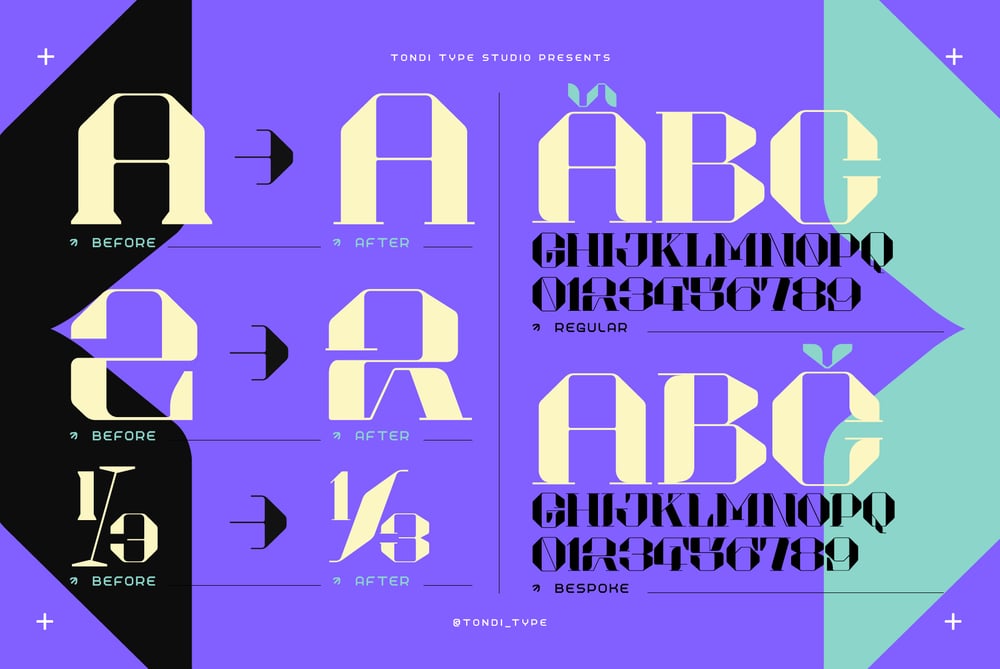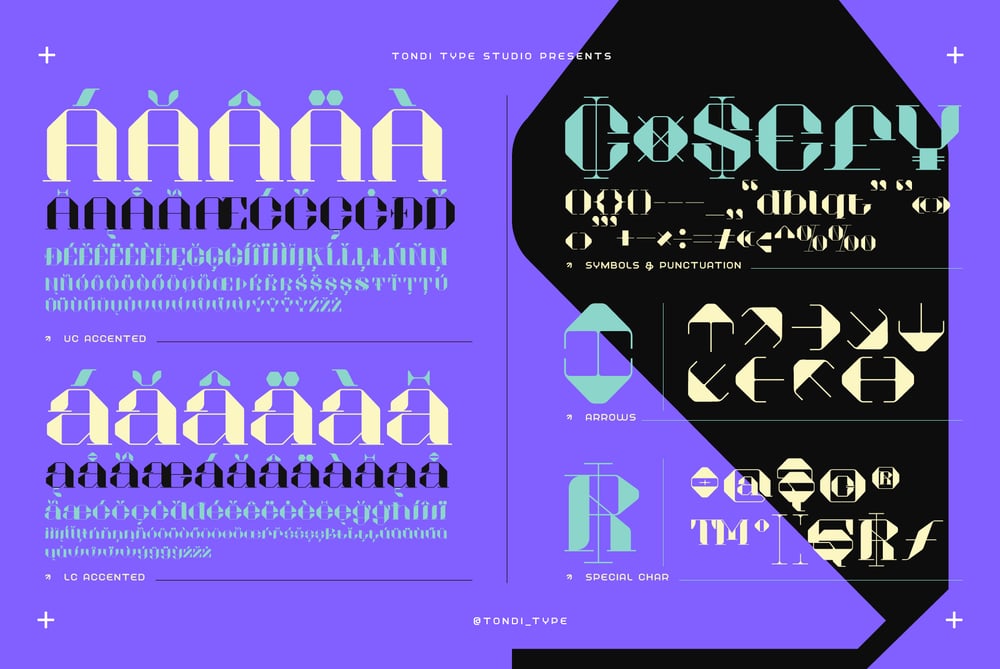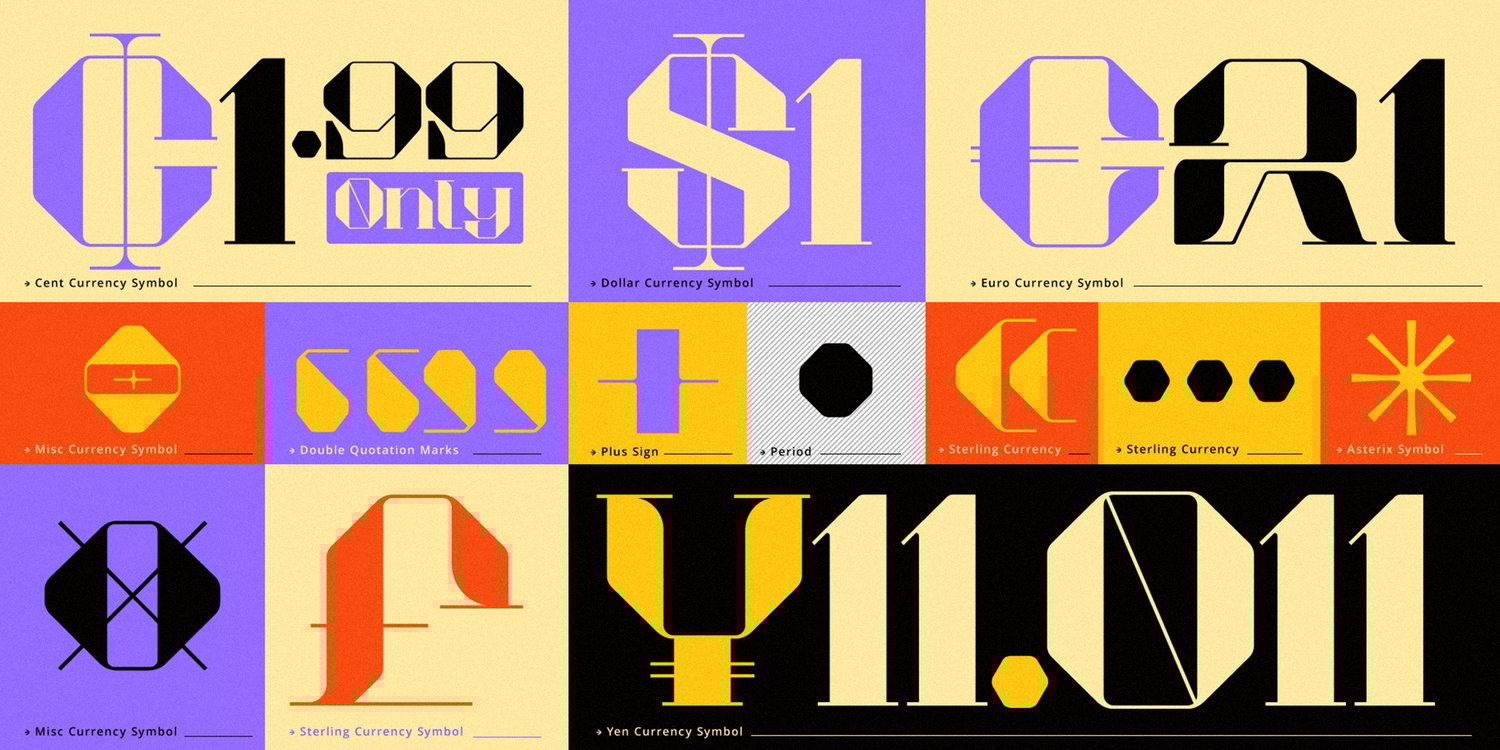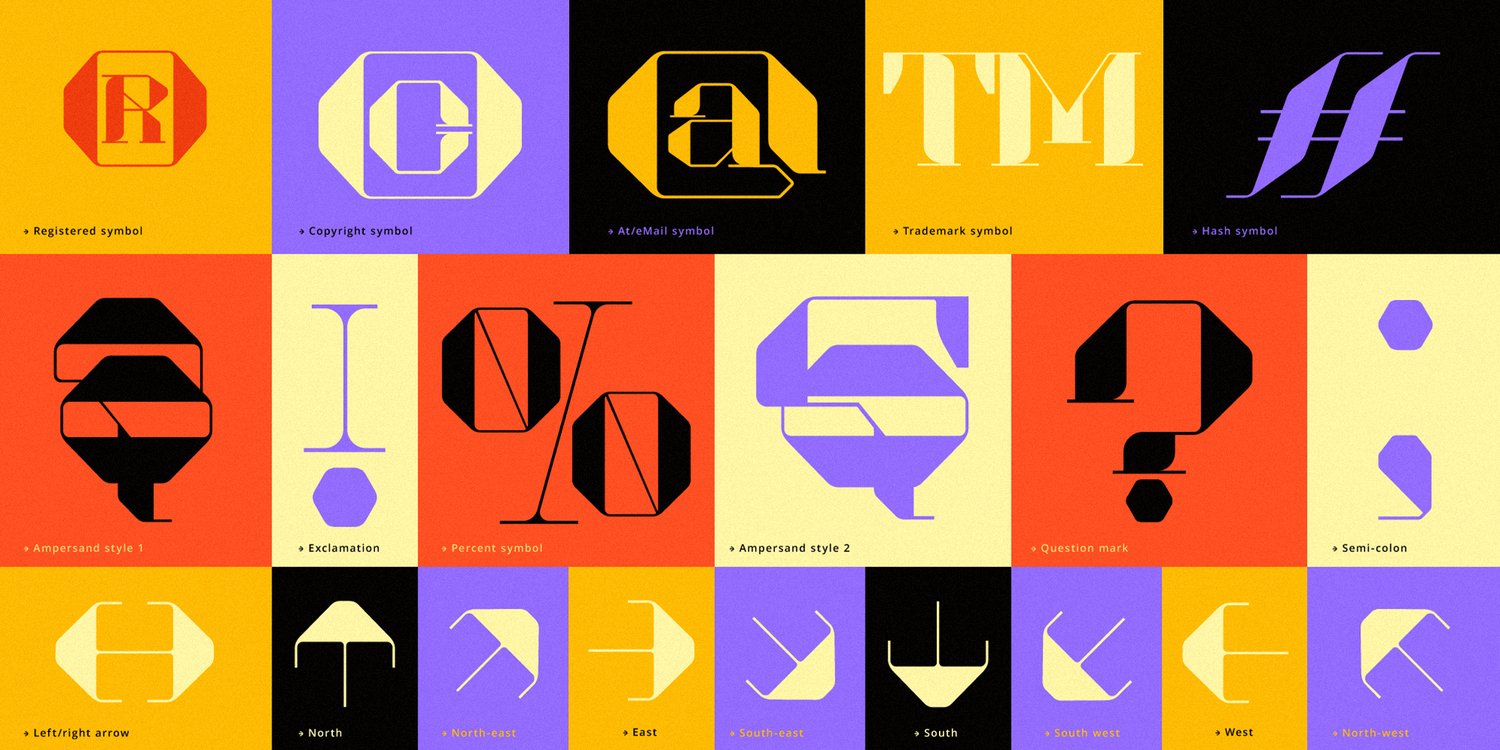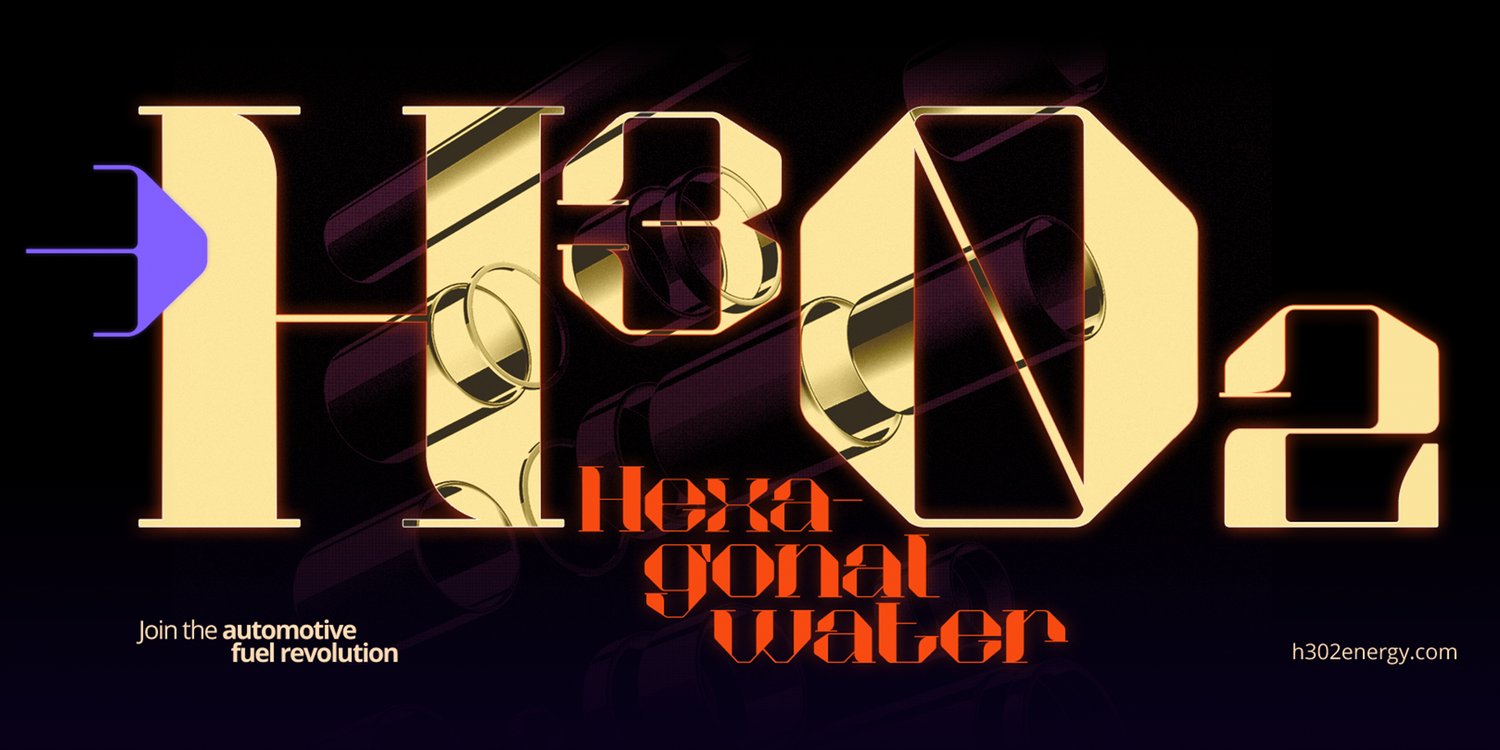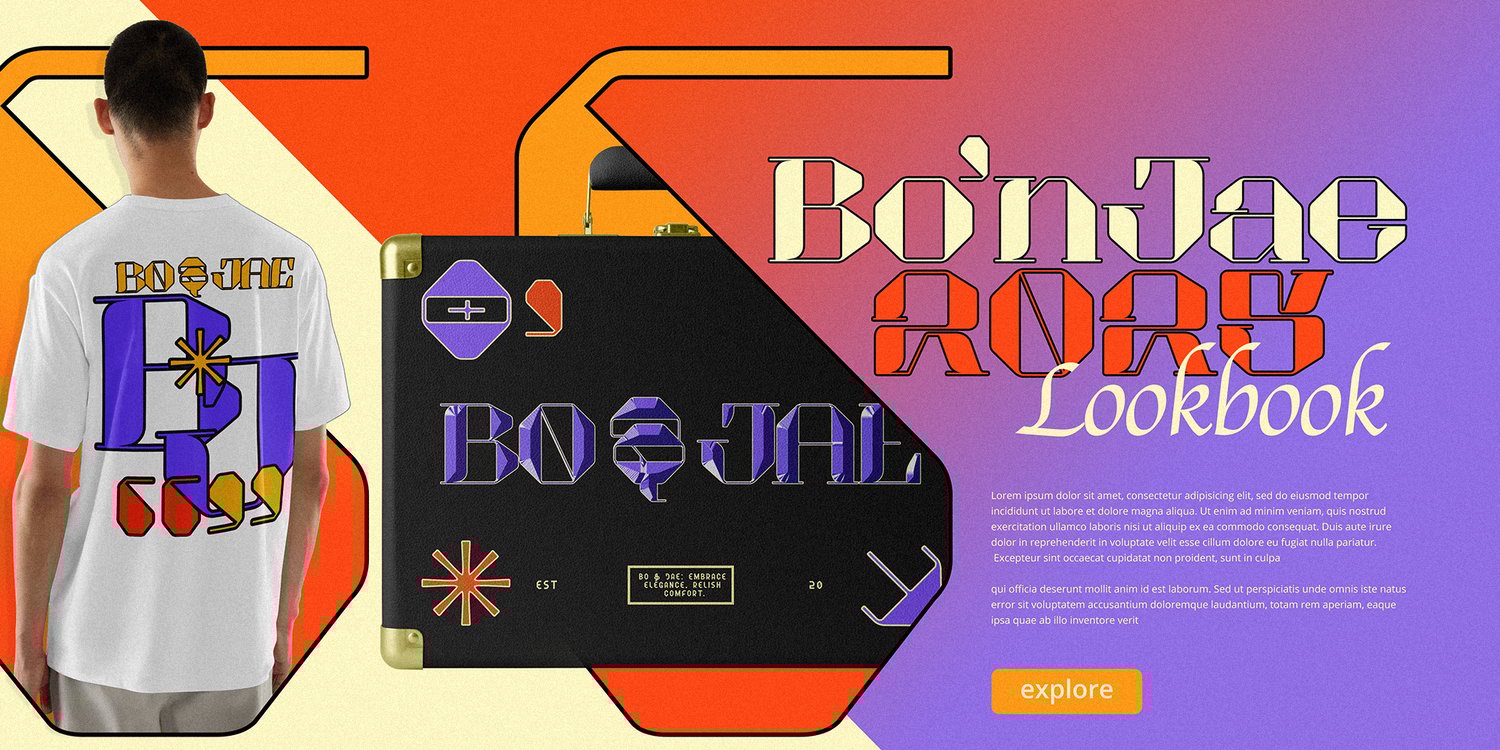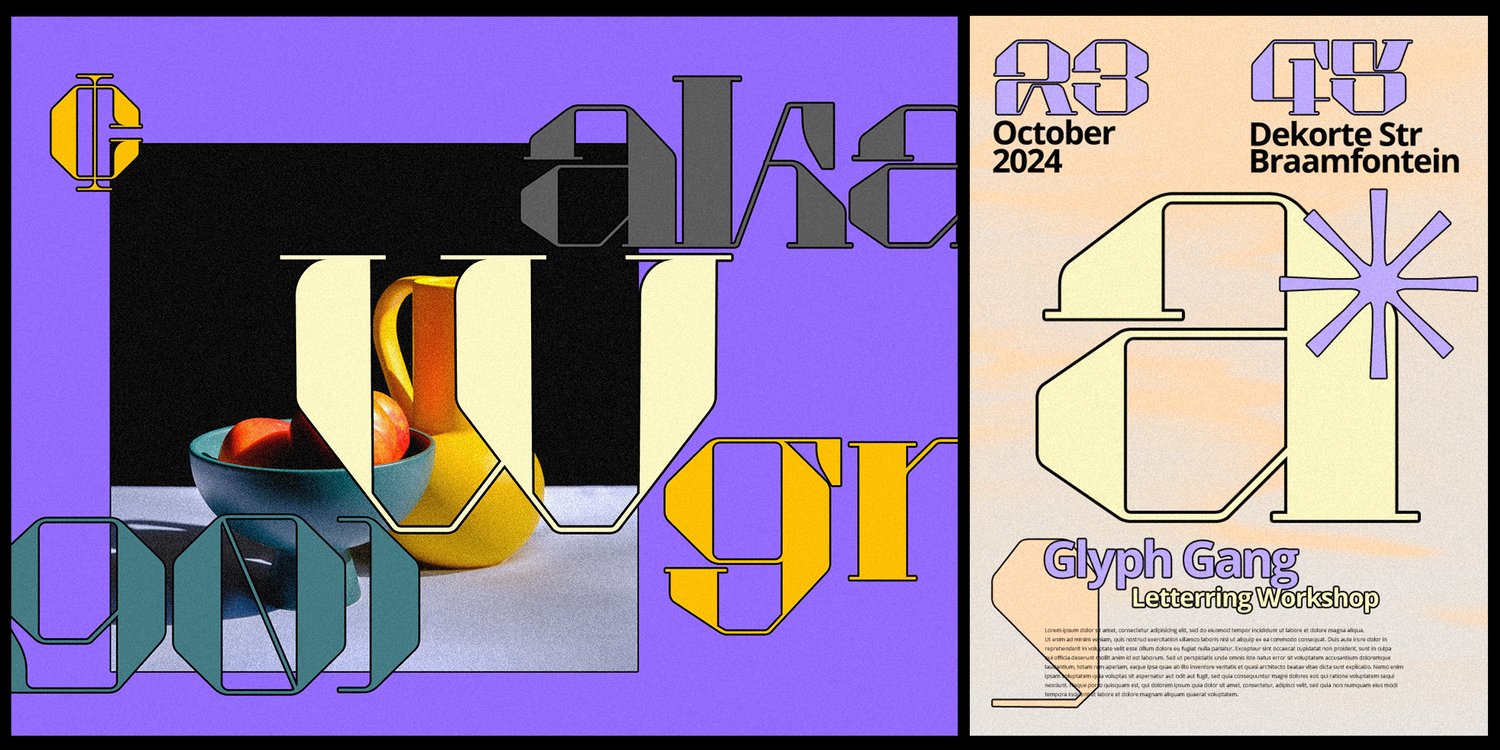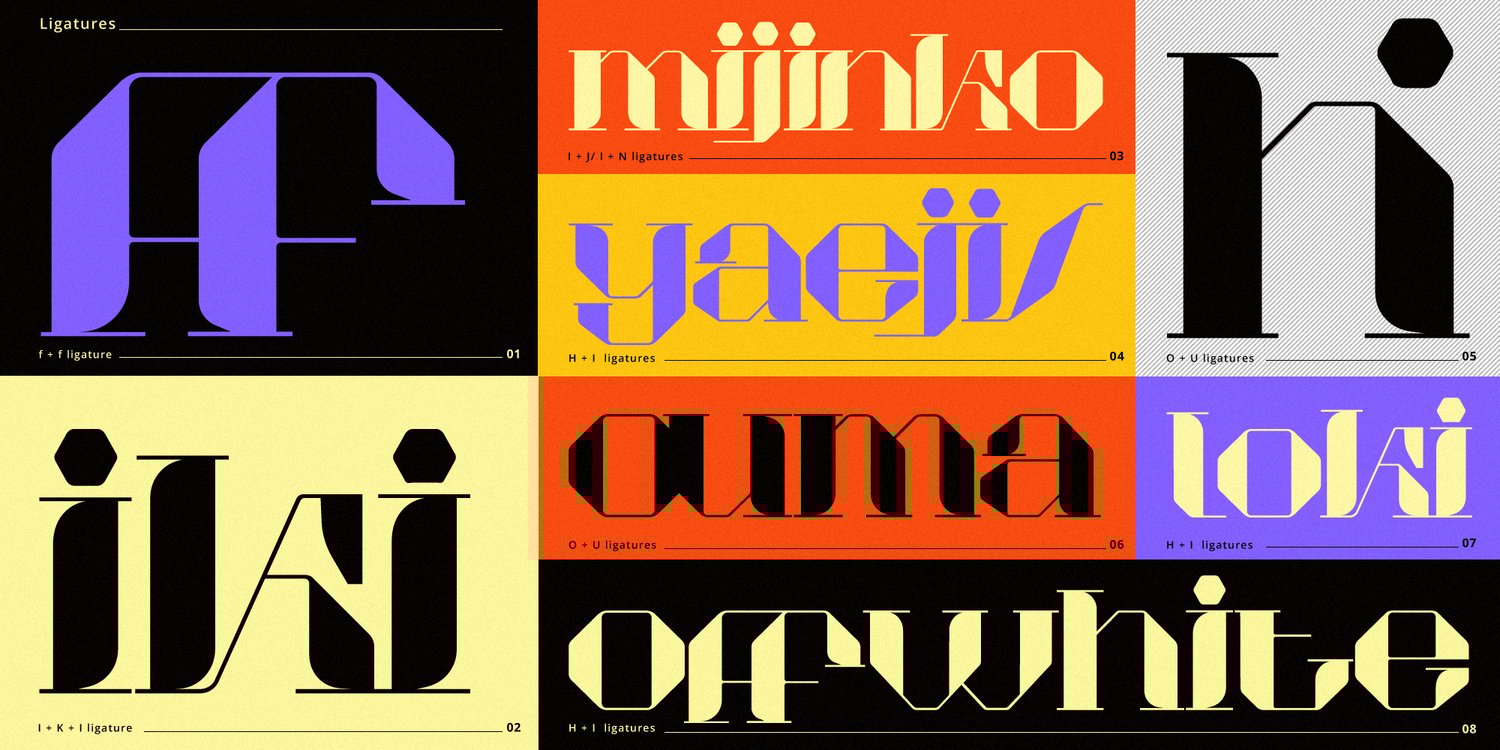
Akadis Neue - Contemporary Serif Font Family
Introducing Akadis Neue: A Contemporary Serif Typeface with a Bold Fusion
Welcome to the world of Akadis Neue, where classical elegance meets contemporary
boldness. This remarkable serif typeface boasts high contrasting stems, offering a
perfect fusion between a classic serif and industrial sans serif design.
An Upgrade to Perfection:
Akadis Neue is the sophisticated upgrade to the beloved Akadis Display typeface.
Refined letterforms take center stage in this new release, ensuring a striking visual
impact on your designs. The typeface has been meticulously crafted to blend
classical aesthetics with a modern edge, making it an ideal choice for a wide range
of creative projects.
Enhanced Language Support:
With extended language support for over 88 languages, Akadis Neue breaks down
communication barriers and ensures that your message reaches a global audience
effectively.
2 Font styles:
- Akadis Neue Regular
- Akadis Neue Bespoke
Versatile OpenType Features: Akadis Neue is packed with features, including:
- ligatures,
- standard numerals,
- fractions,
- old-style figures, and
- special characters.
- 14 OpenType features
Versatility at its Finest:
Akadis Neue shines in headlines and designs that call for a perfect balance between
classical sophistication and contemporary flair. Whether it's editorial projects, branding,
or promotional materials, this typeface elevates your work with its distinctive personality.
Explore the possibilities with both uppercase and lowercase characters, allowing you to
craft harmonious compositions that leave a lasting impression.
Elevate Your Designs with Akadis Neue:
Take your design projects to the next level with Akadis Neue. Embrace the power of contrast,
the beauty of classical elements, and the boldness of contemporary design. Upgrade to
Akadis Neue and elevate your creative expression.